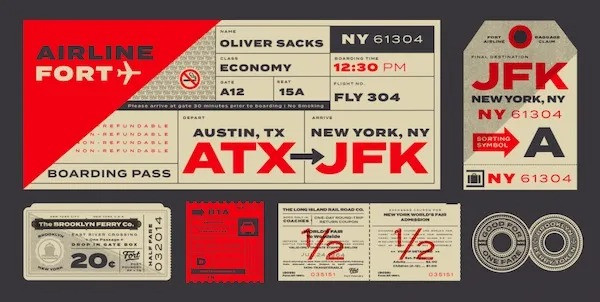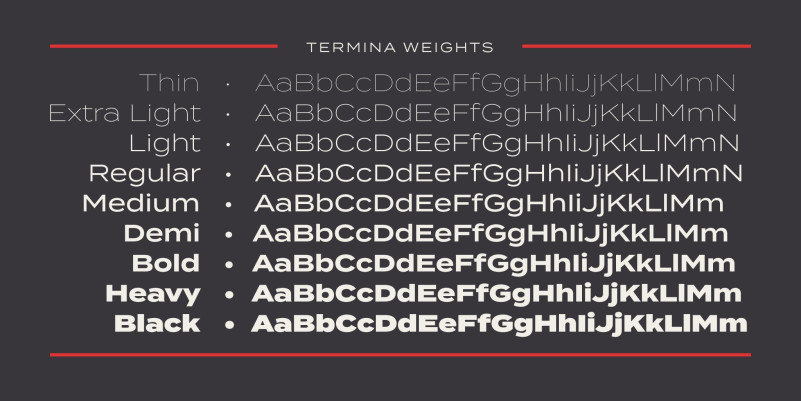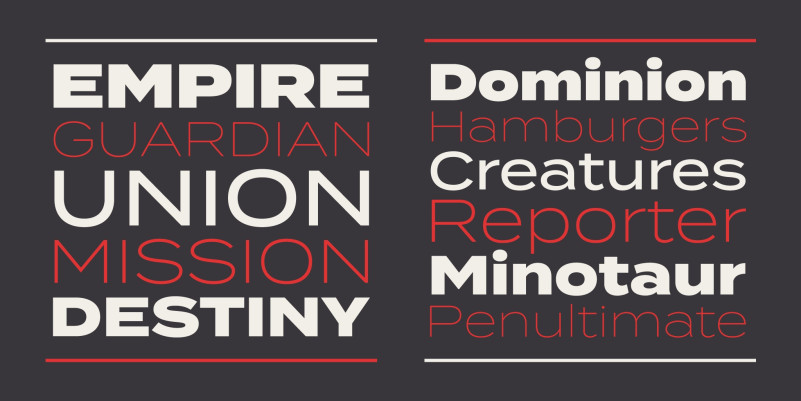
Termina Font Family
Termina Sans Serif Font is a powerful and bold sans, perfect for web headings and logos. It’s designed and shared by Fort Foundry. The various uses can range from advertising to logotype—from small descriptors to pull quotes. The family’s high x-height and wide letterforms help retain legibility and readability at smaller sizes.